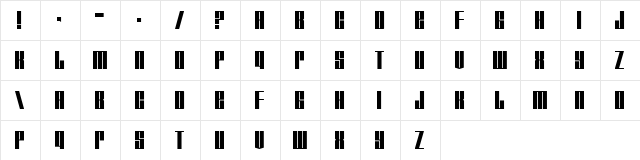
Tagmarker Regular Font Preview
Tagmarker Regular
Tagmarker Regular Font Details
Design Context for Tagmarker Typeface
Tagmarker is a composed and adaptable typeface that performs quietly and consistently across a wide range of design contexts.